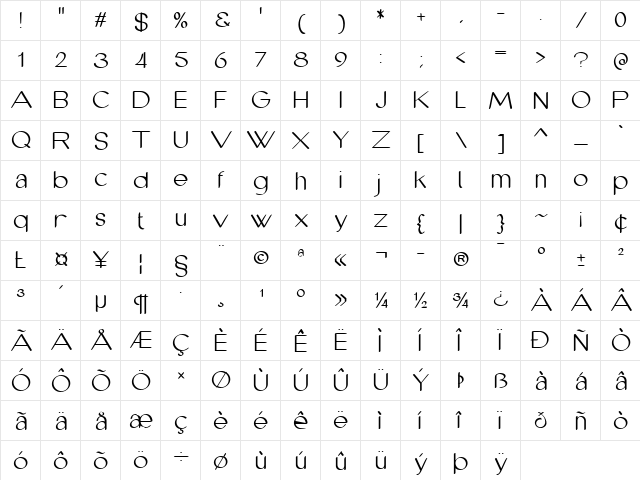
cofley extralight
Design Context for cofley Typeface
cofley offers clean, dependable letterforms without strong stylistic allegiance, making it a practical choice for designers who need flexibility. Its slender proportions lend an understated elegance to any composition.
Pro Tip: Use cofley in both headline and body roles to test its range before committing to a single application.